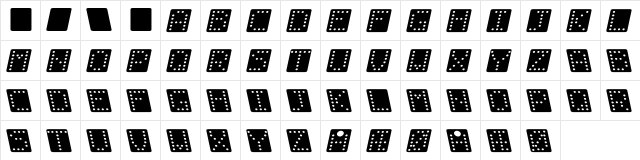
Domino square kursiv Regular
Design Context for Domino square kursiv Typeface
Domino square kursiv is a composed and adaptable typeface that performs quietly and consistently across a wide range of design contexts. The slanted form adds forward momentum and visual energy.
Pro Tip: Try Domino square kursiv for annotation and caption copy alongside an upright companion — the contrast in angle creates a dynamic but ordered typographic system.